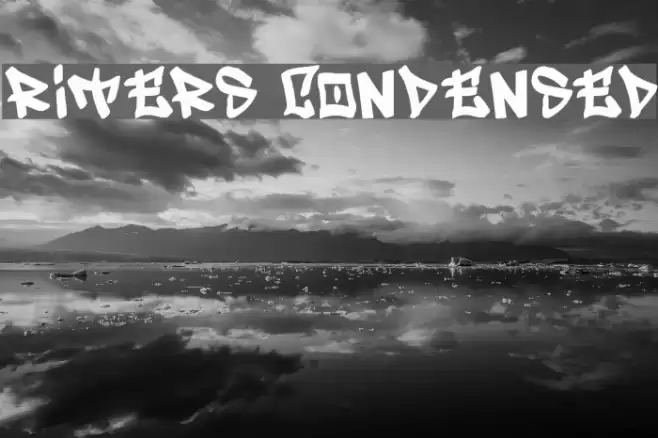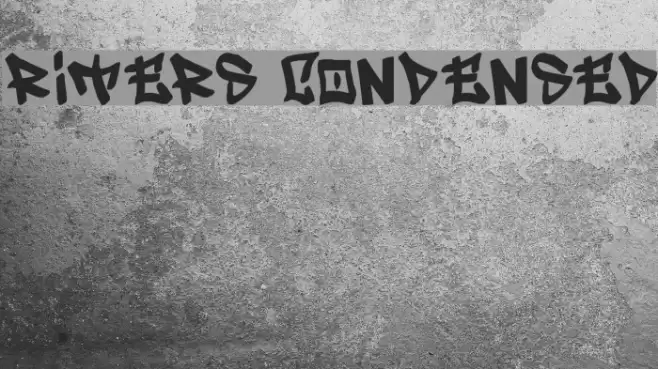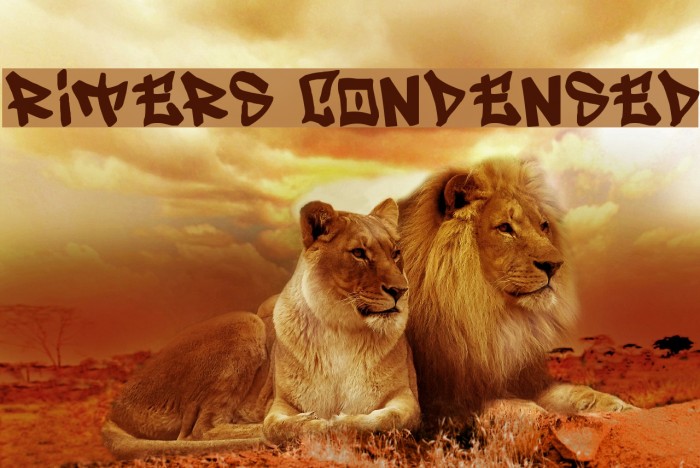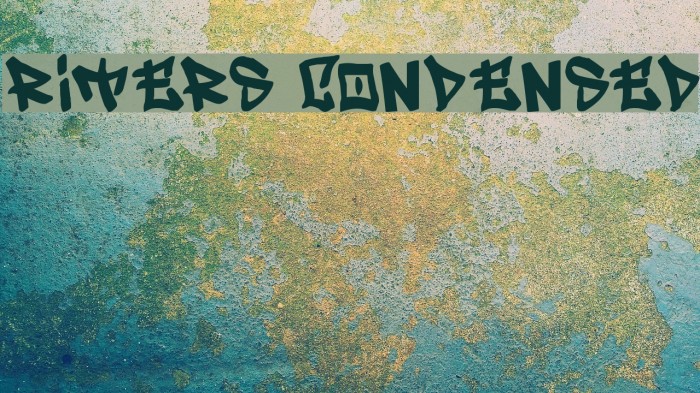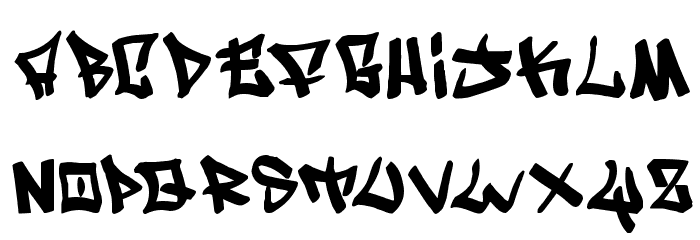
Writers condensed Font
Writers condensed Description
This font features a bold, graffiti-inspired style with angular and dynamic letterforms. The uppercase letters are particularly striking, with sharp edges and a sense of movement that gives them a rebellious and energetic feel. The lowercase letters maintain this edgy aesthetic, while the numbers are consistent with the overall style, ensuring a cohesive look. The special characters are designed to complement the alphabet, adding versatility for creative projects. This font's unique appearance makes it ideal for projects that require a bold statement or urban vibe.
A bold, graffiti-inspired font with dynamic and angular letterforms from Graffiti fonts.
- Proposed Projects: Ideal for street art designs, music album covers, urban-themed posters, and edgy branding projects.
- Overall Style: Urban, Edgy, Rebellious